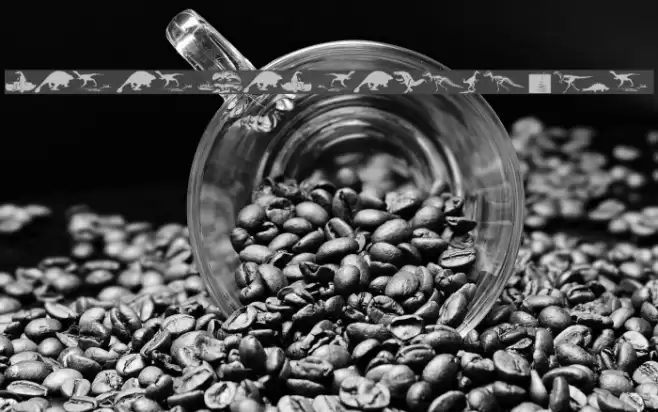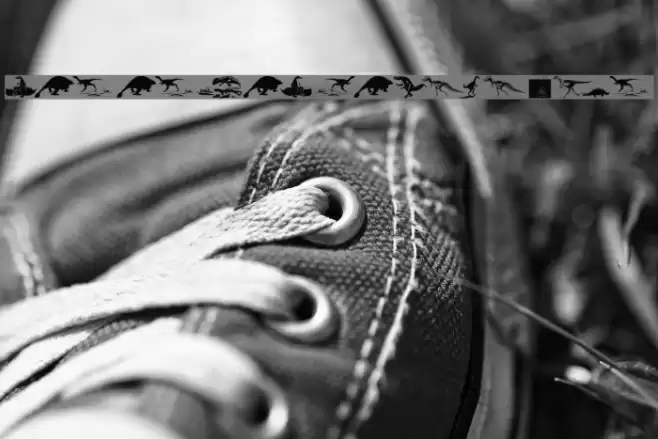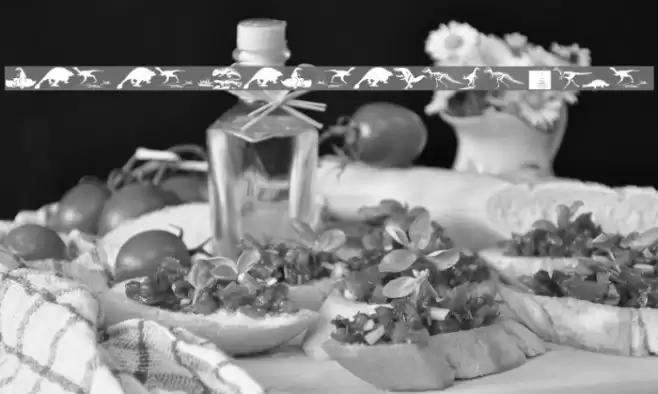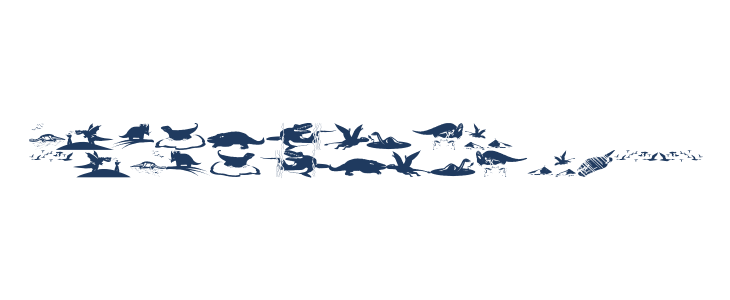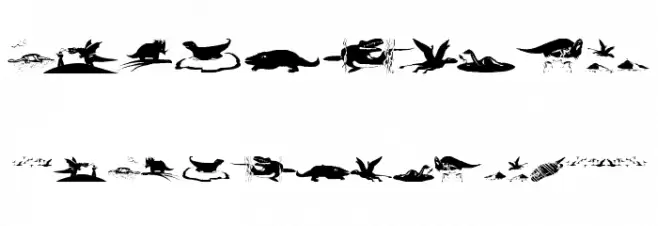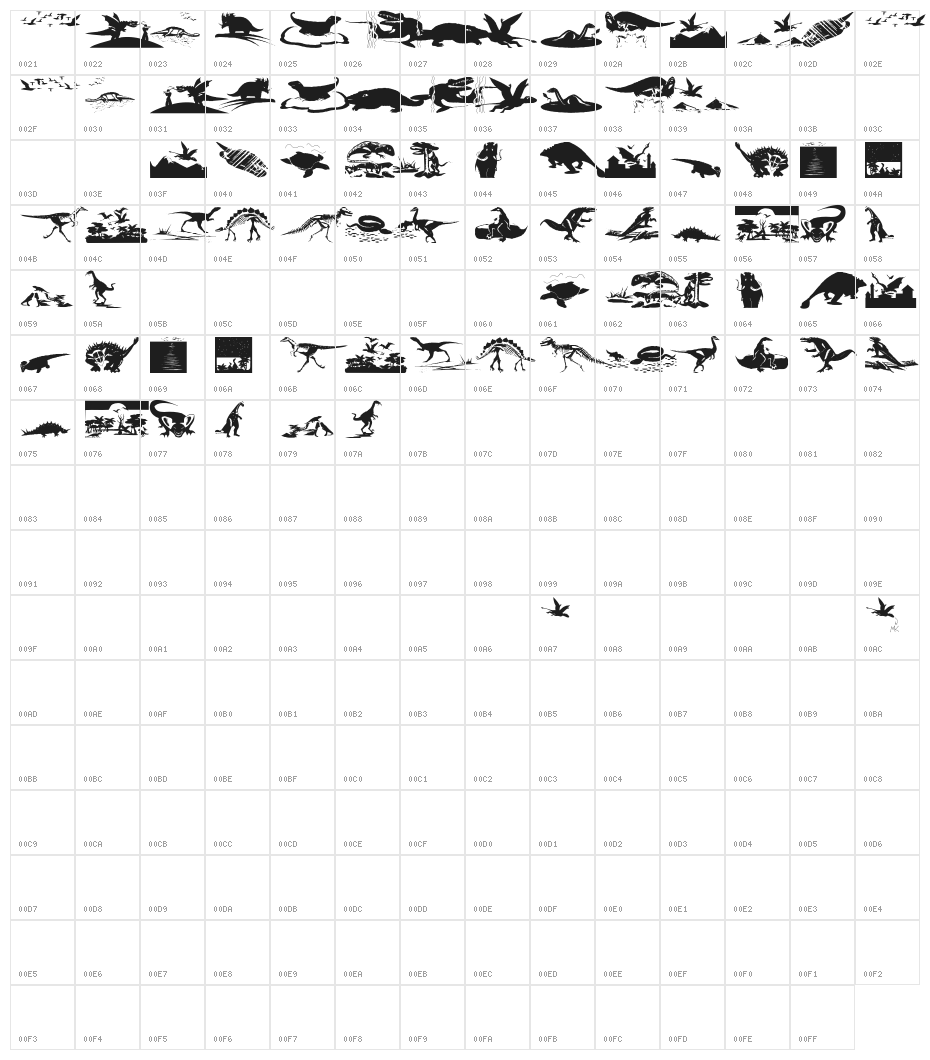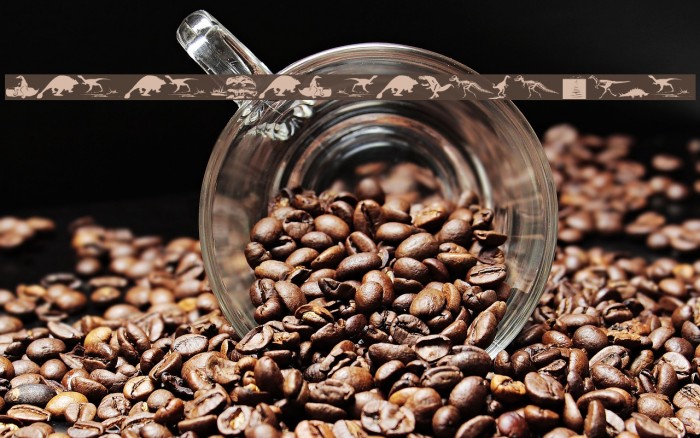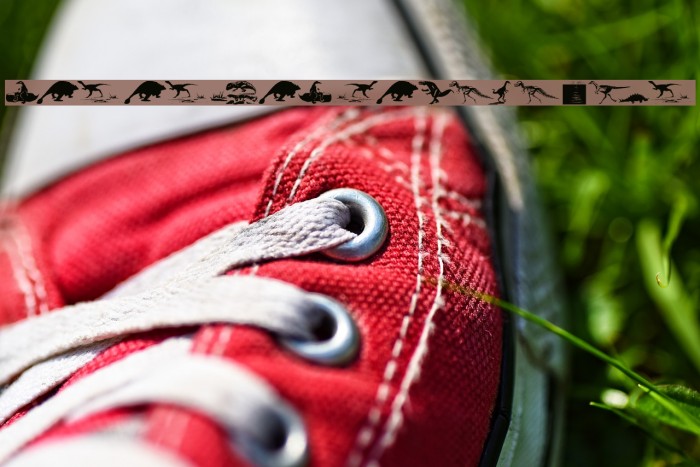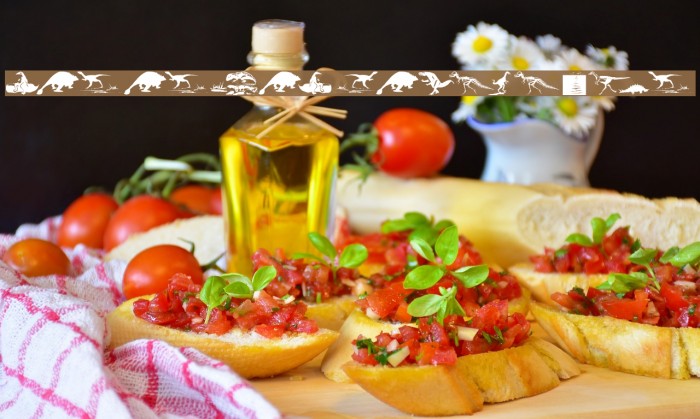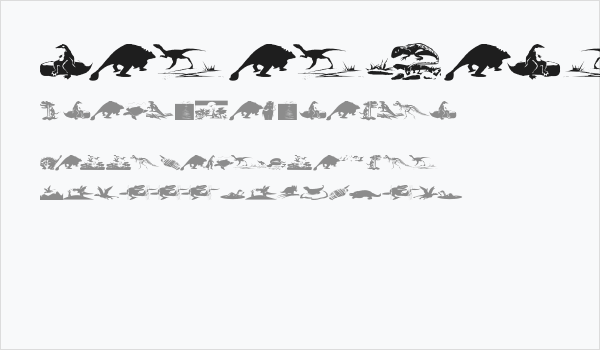
RememberMesozoikum Font
RememberMesozoikum Description
This is a decorative font featuring silhouettes of dinosaurs and prehistoric scenes. Each character is represented by a unique dinosaur or prehistoric element, creating a thematic and visually engaging style. The font captures the essence of the Mesozoic era with detailed illustrations of various dinosaur species and landscapes. The characters are intricately designed, making it suitable for projects that require a strong visual impact. The style is playful yet sophisticated, appealing to both children and adults with an interest in paleontology or natural history.
A decorative font with dinosaur and prehistoric scene silhouettes from Uncategorized fonts.
- Proposed Projects: Ideal for educational materials, children's books, themed event posters, and museum exhibits.